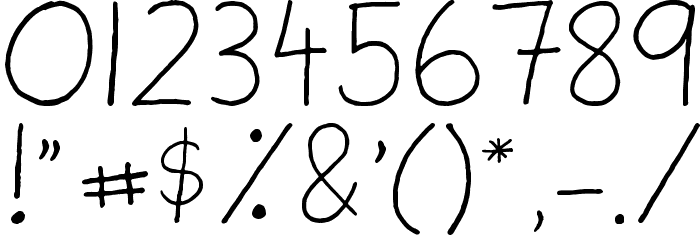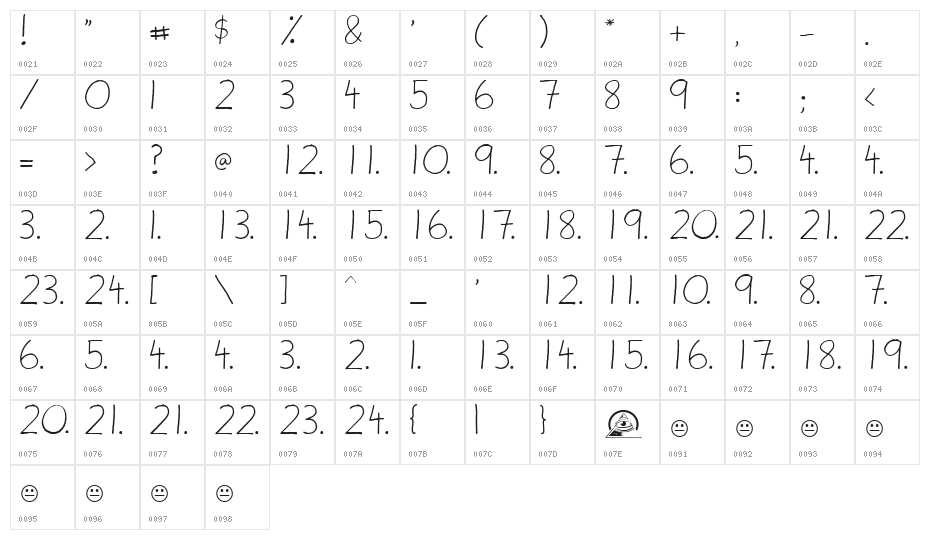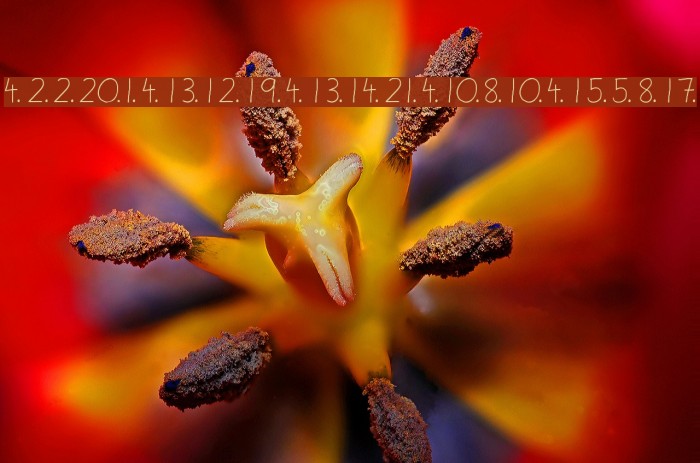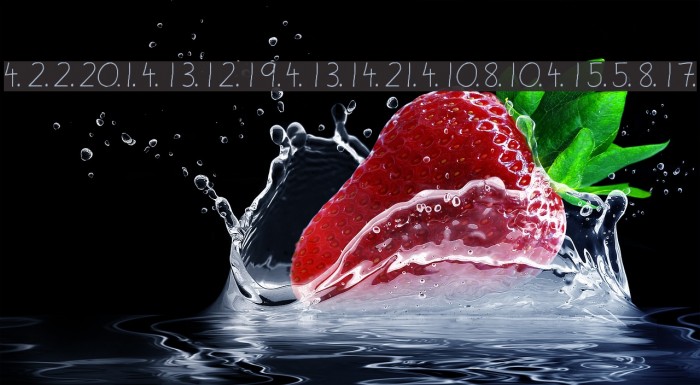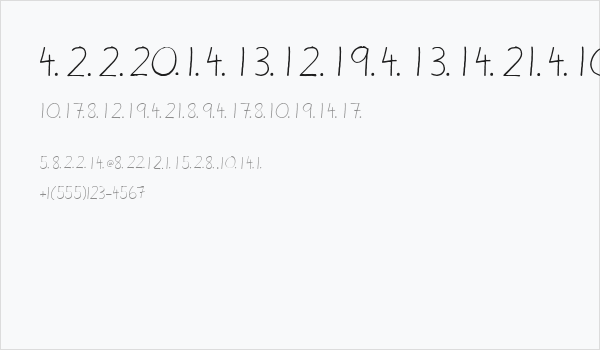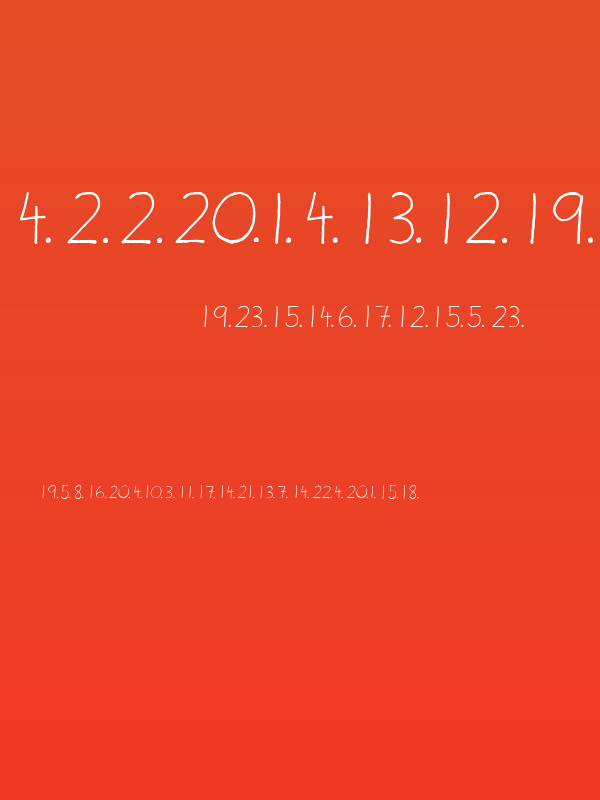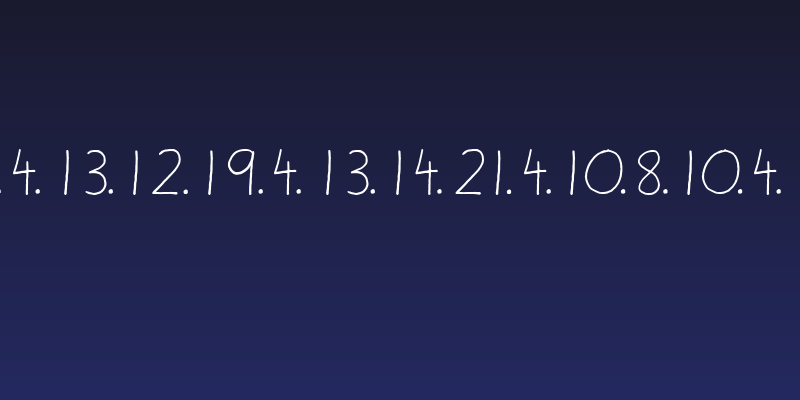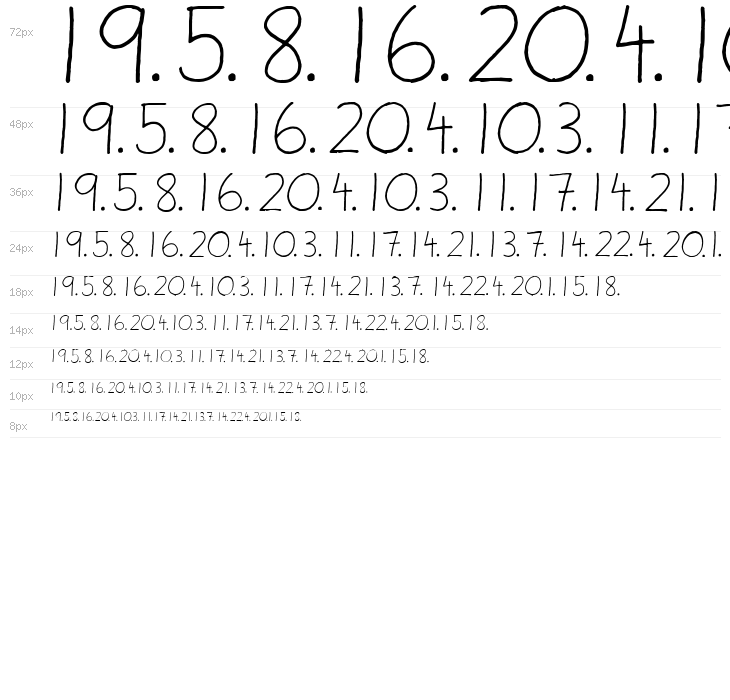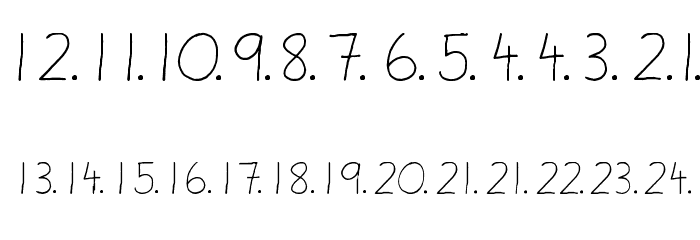
Illuminati Novice Cipher Font
Illuminati Novice Cipher Description
This font features a handwritten style with a playful and casual appearance. The characters are slightly irregular, giving it a personal and informal touch. The strokes are smooth and consistent, with a moderate thickness that ensures readability. The numbers and special characters maintain the same whimsical style, making them blend seamlessly with the letters. This font is ideal for projects that require a friendly and approachable look, such as invitations, greeting cards, or personal notes. Its unique character makes it stand out while remaining easy to read.
| Use Case | Invitations, Greeting cards, Personal notes |
| Proposed Projects | Ideal for invitations, greeting cards, personal notes, and casual branding. |